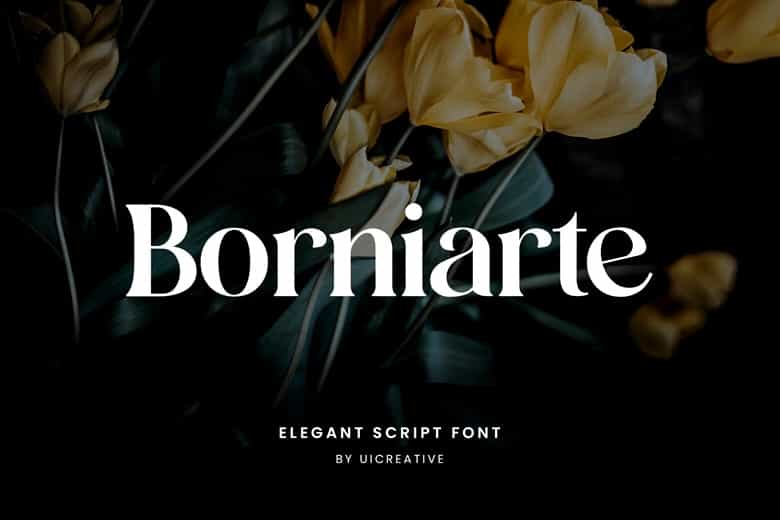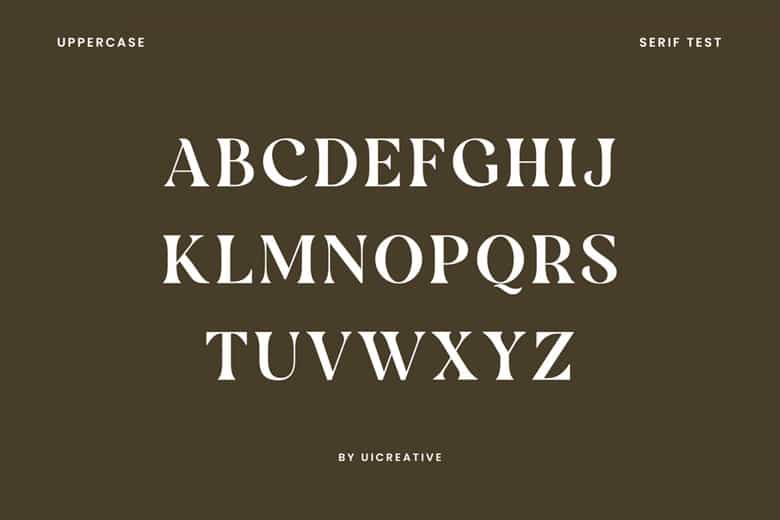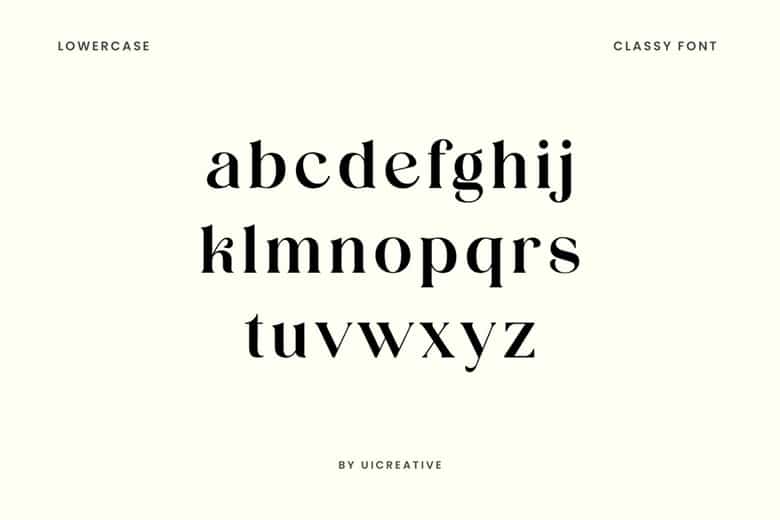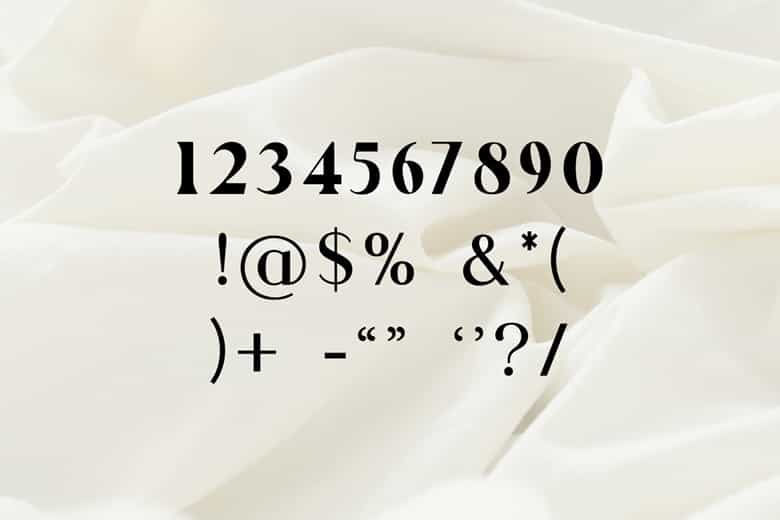
Borniarte is an elegant serif typeface that makes the text look beautiful classy, elegant, and in the same time – modern. This font works great for any gigs, such as stationery, logo, wedding, typography quotes, magazine or book covers, website headers, clothing branding, packaging design and much more.